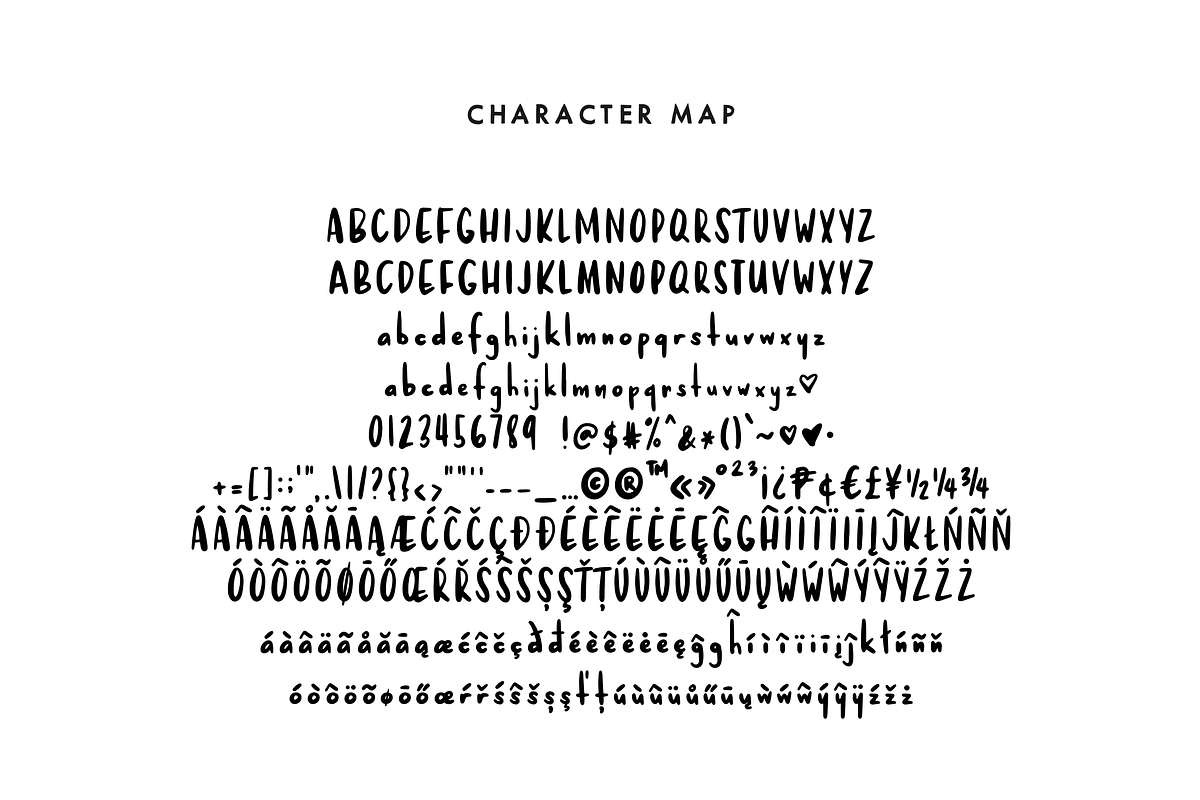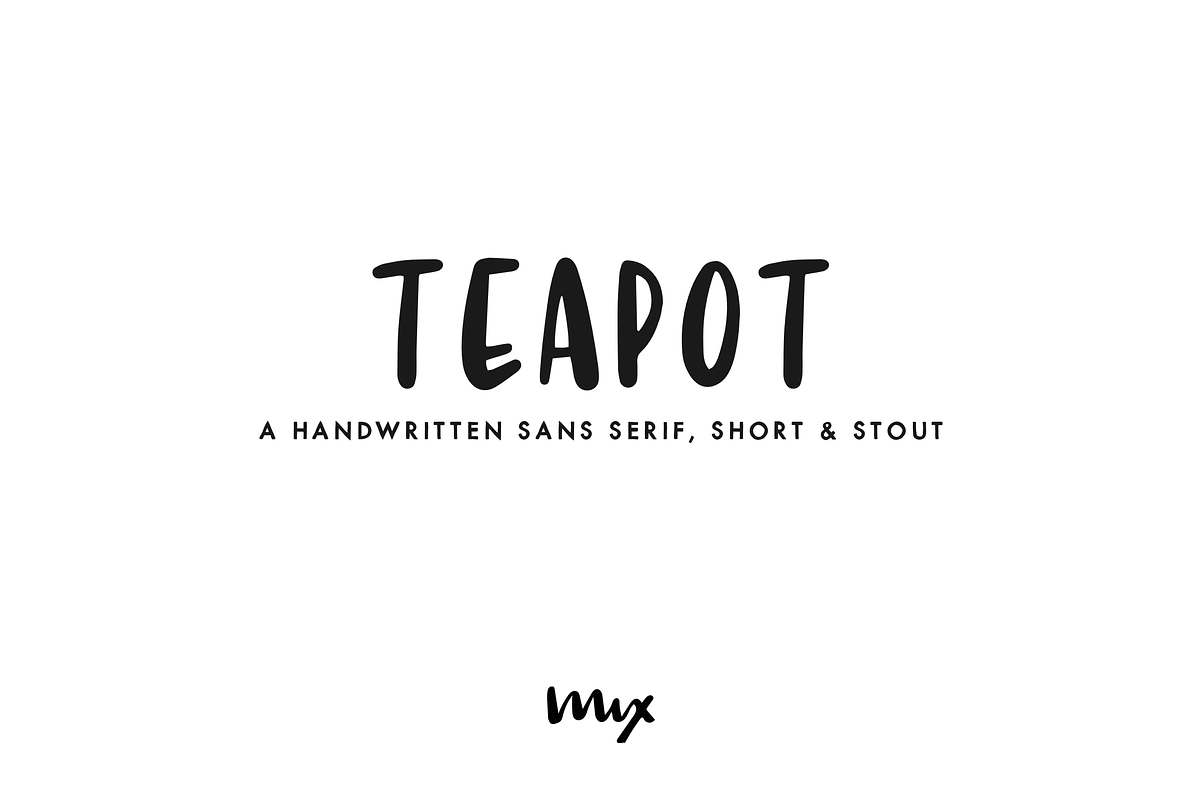
Teapot — A Handwritten Sans Serif
MIX TEAPOT is a handwritten sans serif, short & stout. This was written on an iPad using the Poppy procreate brush from this bundle:
ABCDEFGHIJKLMNOPQRSTUVWXYZ (plus an alternate for each)
abcdefghijklmnopqrstuvwxyz (plus an alternate for each)
English, Catalan, Croatian, Czech, Danish, Esperanto, Estonian, Filipino, Finnish, French, Gaelic, German, Hungarian, Icelandic, Irish, Italian, Latvian, Lithuanian, Norwegian, Polish, Portugese, Romanian, Serbian, Slovak, Slovenian, Spanish, Swedish, Turkish, Welsh